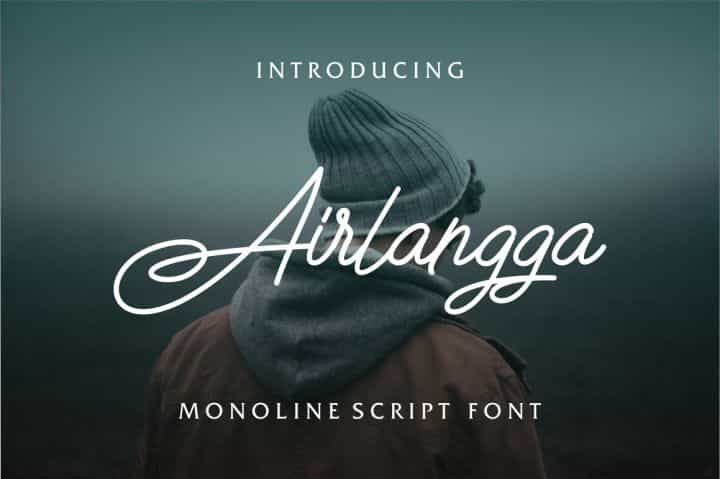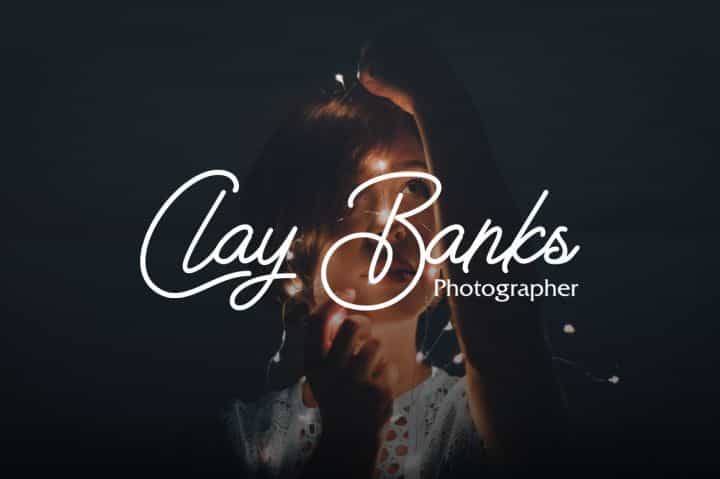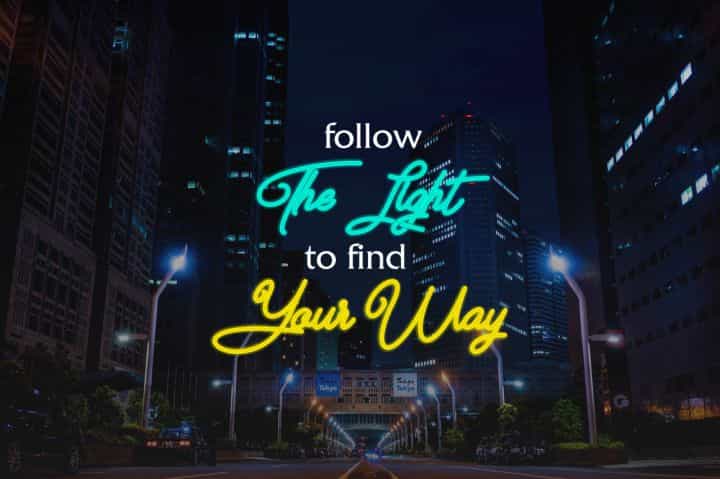
Introducing Airlangga Font. Airlangga is a Monoline Script font with the appearance of casual and signature style. Airlangga is the ideal person for your next projects. This script is simple and clean which makes it perfect for many design needs like logos, blog headers, wedding invitations, branding, t-shirts, posters & many more type of projects!